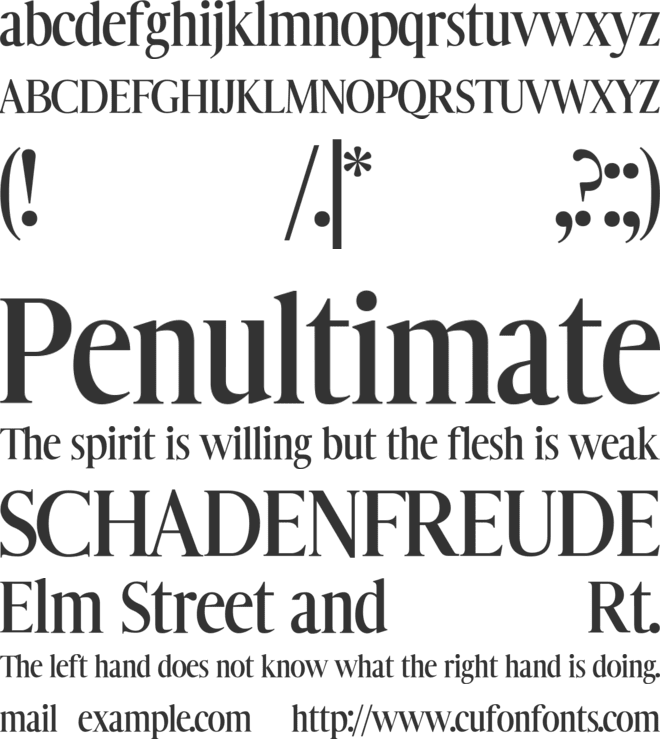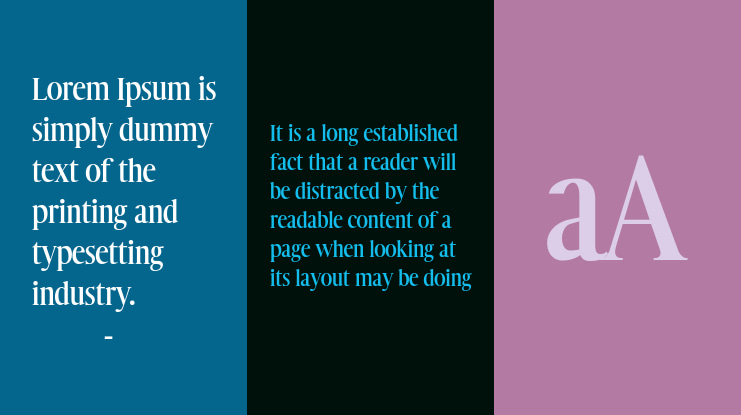
COSETE Font
🎨 Font Name: COSETE by Minimalist Art Studio
🎨 Font Description: COSETE is a luxurious serif with multilingual support and graceful contrast, ideal for branding, packaging, and high-end editorial design.